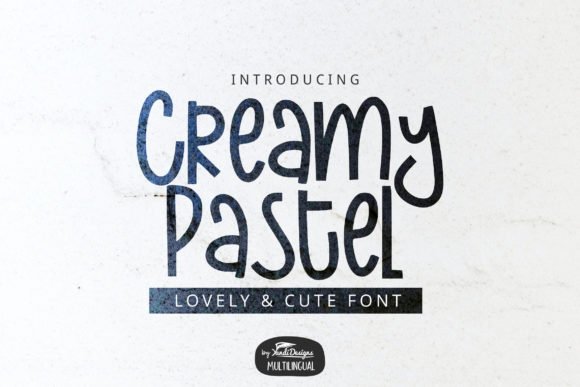
Get Ready to Brighten Up Your Designs
Who hasn’t felt the urge to grab a box of crayons and unleash their inner child on a blank page? For designers, those moments of pure creative joy are often what drive us to push the boundaries of our craft. And what better way to tap into that whimsy than with the perfect font?
Enter the Creamy Pastel Font, a charming display font that’s equal parts playful and adorable. With its soft, pastel hues and rounded edges, this font is tailor-made for school projects, children’s books, and any other design idea that requires a touch of youthful charm. Whether you’re a seasoned pro or just starting out, the Creamy Pastel Font is an invaluable addition to your design toolkit.
Creamy Pastel Font Key Features
- Font Family: Creamy Pastel Font is a unique, hand-drawn font designed to evoke a sense of softness and elegance.
- Unique Characteristics: Creamy Pastel Font features subtle texture and imperfections, giving it a handmade, organic feel that sets it apart from more traditional fonts.
Review: Creamy Pastel Font
First impressions are everything, and when I first laid eyes on the Creamy Pastel Font, I was charmed by its soft, dreamy aesthetic. ✨ The subtle texture and gentle curves evoke a sense of whimsy and playfulness, making it perfect for designs that require a touch of elegance and sophistication.
One of the standout features of this font is its versatility. It works well for both digital and print projects, from social media graphics to wedding invitations. ✨ It’s also highly legible, even at smaller font sizes, which is a major plus for designers who need to convey information quickly and efficiently.
While the Creamy Pastel Font is a beautiful addition to any design arsenal, it does have some limitations.
- ⚠️ Limited character set: The font’s character set is somewhat limited, which may make it difficult to use for projects that require a wide range of characters (e.g. foreign languages, technical terms).
- ⚠️ Not ideal for bold text: While the font is lovely for body text, it can get lost when used for headings or bold text. This may require some additional design adjustments to make it stand out.
Overall, I’m a big fan of the Creamy Pastel Font. While it may have some limitations, its unique aesthetic and versatility make it a valuable addition to any designer’s toolkit. With a little creative problem-solving, it can be used to create truly stunning designs that are sure to impress.
For best results, pair the Creamy Pastel Font with pastel-colored backgrounds and gentle textures.
Experiment with font sizes and styles to create visually appealing headings and subheadings.